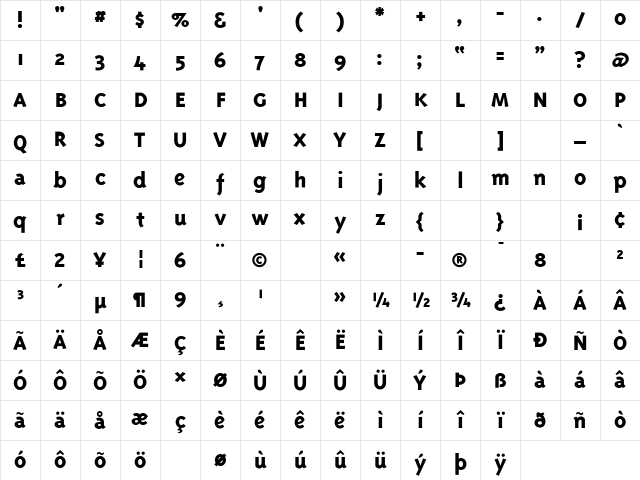
TriplexExtrabold is a composed and adaptable typeface that performs quietly and consistently across a wide range of design contexts. Its bold stroke weight gives it real presence on the page.